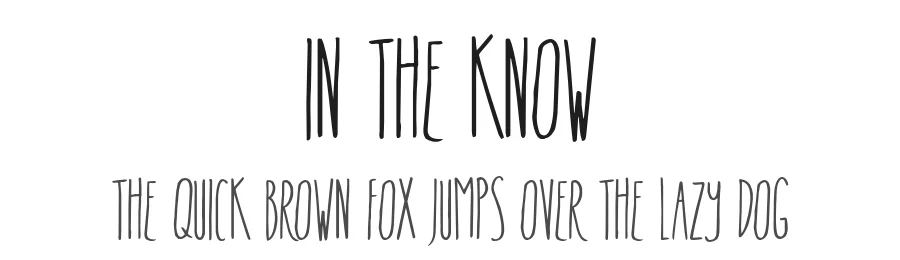
About Mr. Quincy Font
If you are looking for a handwritten typeface that can perfectly use in all your valuable designs then pick Mr. Quincy font. This is a handcrafted typeface that comes with extended features and a huge stylish character set that are very suitable for any type of design project. This handwritten font was designed by Fontforestry that is a notable typefaces designer.
This is a free quirky handcrafted typeface that contains some decorative doodles too in this typeface. It is providing an OpenType format that you can use this glorious typeface in all your personal projects for free. If you have commercial projects and want to use this typeface then purchase its license before using it in an official project. This typeface is the most reliable font in the designing field that is ready for any type of design project and it was created based on the ease and speed up your design process.
This is a great effort of Fontforestry that provides a precious gift to designers. Mr. Quincy is very famous among the designers and they are using the font in their regular designs and got satisfied their customers with the utilization of this handcrafted design because it has similarities Helvetica font family. The font family contains four weights including Quincy Regular, Quincy CF Bold, Quincy CF Black, Quincy CF Light, and each weight provides more unique styles.
You can find many styles in its regular style, which are uppercase, lowercase, numerals, icons, symbols, and some special characters too. These all the styles and characters can be perfectly used for any type of design and text design project. You can use this version for personal projects only but with some limited features and it is still enough for perfect designs projects but if you want to use this typeface with unlimited features then we are suggesting you purchase its paid version.
Mr. Quincy Font is a script font that shines as a display or heading face. Pair it with a clean sans-serif or serif font for body text β the contrast creates a clear hierarchy while the two styles stay balanced and easy to read.